16 Elegant Fonts for Luxury Clothing Labels 2026
As a designer, I believe typography is essential in creating a strong fashion identity. This curated collection of 16 elegant apparel fonts for luxury clothing labels in 2026 features typefaces I personally use to design refined, modern, and premium fashion branding projects.
Each font was selected for its clean aesthetics, sophisticated details, and versatility across clothing labels, fashion logos, packaging, lookbooks, and editorial campaigns. From minimal modern serifs to elegant display fonts, these typefaces help create a timeless and elevated visual presence for luxury apparel brands.
I always choose fonts that combine style and functionality, allowing every fashion project to feel distinctive, polished, and visually memorable.
Mango Dream Font
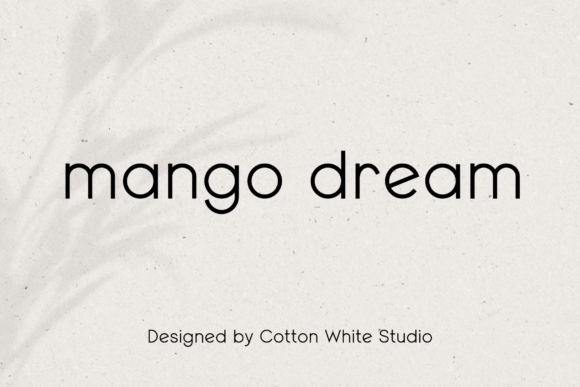
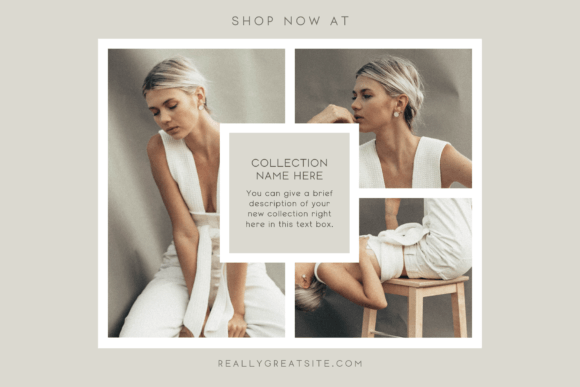
Mango Dream is a modern sans serif font that combines clean minimalism with a soft contemporary style. I love using it for branding, websites, marketing materials, logos, packaging, and social media graphics because its rounded lettering feels professional and versatile. The sleek modern design and multilingual support make it a perfect choice for creating stylish, polished, and globally appealing projects.
Ashley Southine Font
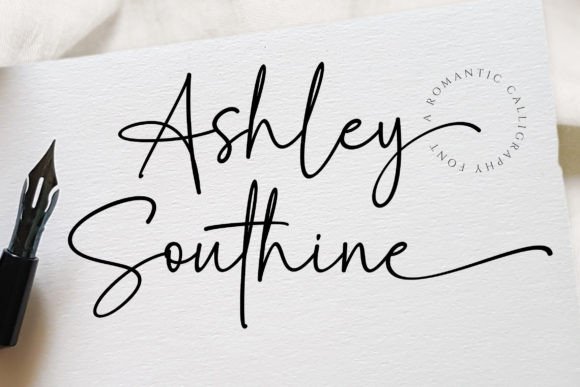
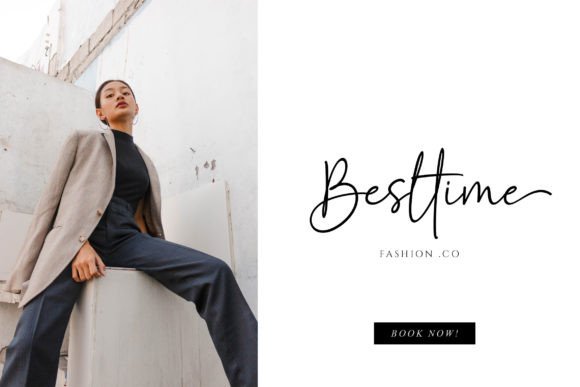
Ashley Southine is a beautiful handwritten script font that adds warmth, elegance, and personality to any creative project. I enjoy using it for wedding invitations, branding, logos, greeting cards, packaging, and social media graphics because its natural handwritten style feels soft and authentic. The flowing handcrafted strokes create a refined and personal look that makes every design feel stylish, inviting, and beautifully unique.
Opera Signature Font
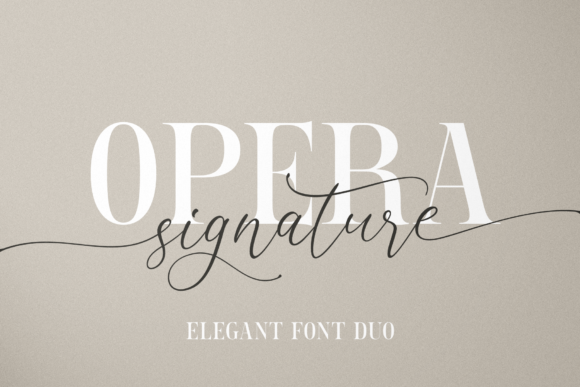
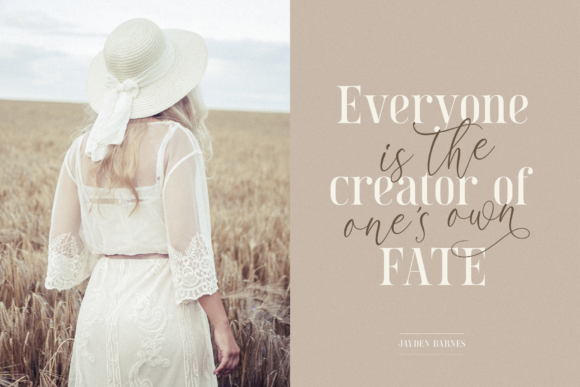
Opera Signature is an elegant font duo that combines a refined handwritten script with a sophisticated serif typeface for a truly luxurious look. I love using it for branding, wedding invitations, logos, editorial layouts, packaging, and social media graphics because the mix of classic serif structure and flowing handwritten detail feels timeless and stylish. This versatile font pairing instantly makes every design look polished, premium, and visually captivating.
Ethereal Font
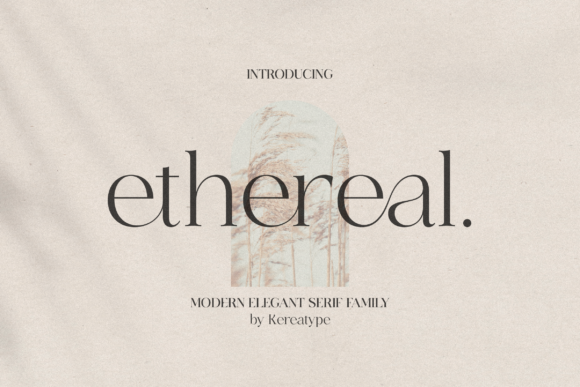
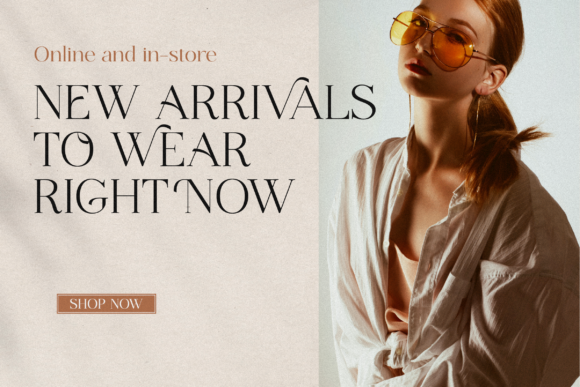
Ethereal is a modern serif font family that blends elegance, luxury, and contemporary style into one sophisticated typeface. I enjoy using it for branding, logo design, editorial layouts, packaging, and fashion projects because its refined serif details feel classy and timeless. The stylish letterforms and versatile weights create a premium aesthetic that makes every design look polished, unique, and visually striking.
Chopard Font
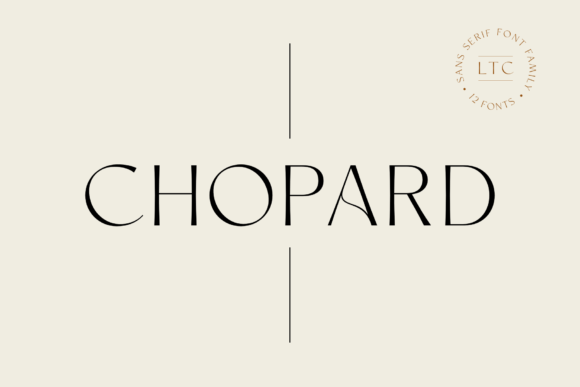
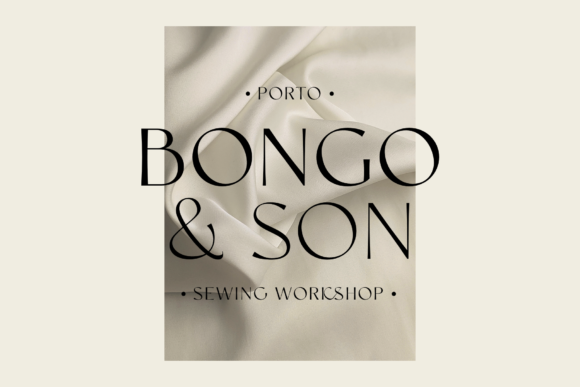
Chopard is an elegant and modern sans serif font. Add this font to your creative ideas and notice how it will make them stand out!
Vintage Story Font
Vintage Story is a handwritten script font that beautifully captures a rustic and nostalgic aesthetic. I enjoy using it for wedding invitations, love letters, branding, logos, quotes, and signature designs because its vintage handwritten style feels authentic and timeless. The elegant ligatures and charming curves create a warm romantic look that makes every project feel personal, stylish, and full of character.
Bright Darling Duo Font
Bright Darling is an elegant font duo that combines a modern sans serif with a graceful script font for a perfectly balanced luxury aesthetic. I love using it for branding, wedding invitations, logos, packaging, editorial layouts, and social media graphics because the clean minimal style paired with handwritten elegance feels timeless and sophisticated. This stylish font pairing instantly makes designs look polished, creative, and professionally crafted.
Laro Font
Laro is a bold sans serif font that combines simplicity with a strong modern presence. I enjoy using it for branding, labels, packaging, cards, logos, and social media graphics because its thick clean lettering feels versatile and professional. The minimal contemporary style gives every design a polished and eye-catching look that works beautifully across creative projects.
Conso Font
CONSO is a modern contrast sans serif font family that combines elegance, readability, and contemporary style. I love using it for branding, advertising, packaging, editorial layouts, logos, magazines, and website design because its clean lettering feels sophisticated and highly versatile. The stylish contrast details and multiple font weights create a polished premium look that makes every project feel modern, professional, and visually refined.
Bacalisties Font
Bacalisties is a delicate handwritten font that brings softness, elegance, and modern style into any design. I enjoy using it for branding, wedding invitations, logos, packaging, social media graphics, and beauty projects because its thin handwritten lettering feels clean and sophisticated. The smooth curves and stylish swashes create a refined aesthetic that makes every project look graceful and professionally designed.
Elegant Font
Elegant Font is a sophisticated typeface with smooth, stylish letterforms, thin strokes, and graceful curves that create a timeless and classy appearance. Perfect for luxury branding, wedding invitations, logos, editorial layouts, and social media design. Ideal for modern elegant typography, professional graphic design, and premium creative projects.